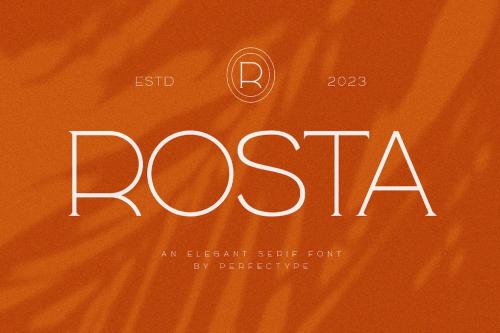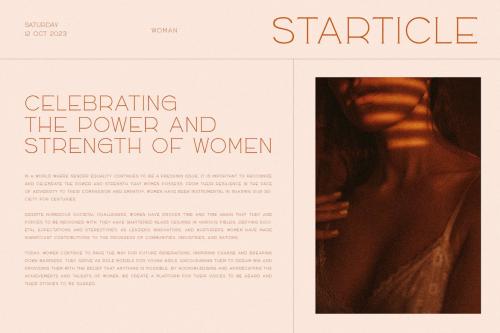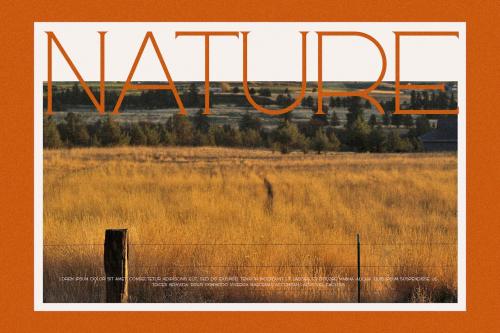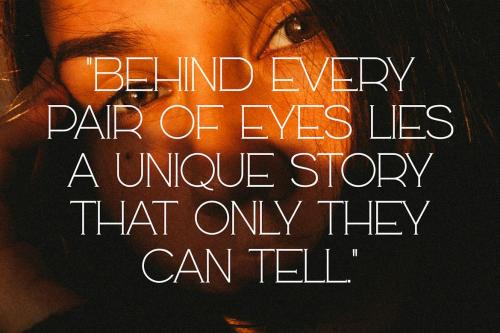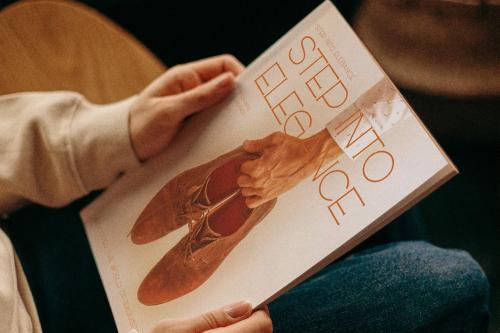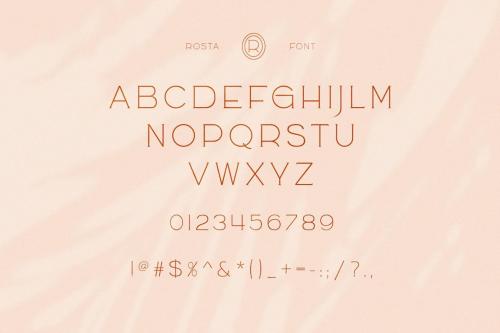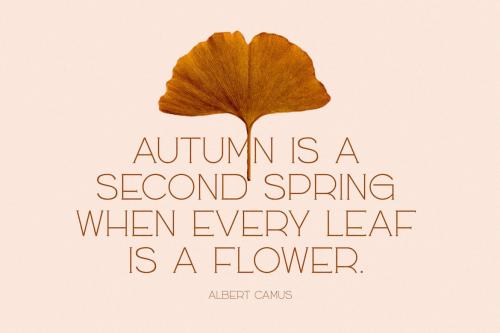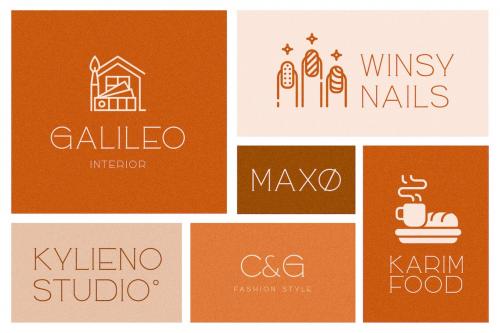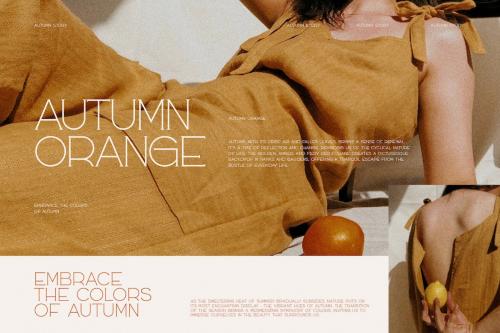
罗斯塔现代 serif 字体 类型face
Rosta Modern Serif Font Typeface
Rosta Modern Serif Font Typeface inspired by the famous minimalist logo perfect for the purposes of designing templates, brochures, videos, advertising branding, logos, invitation, layout design, elegant crafting, beauty design and other